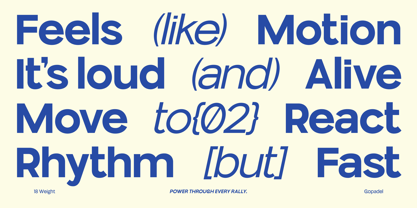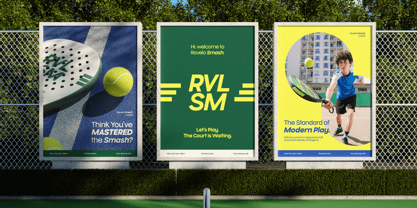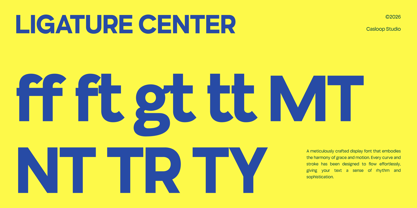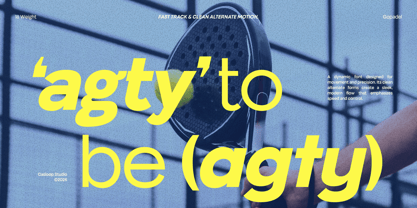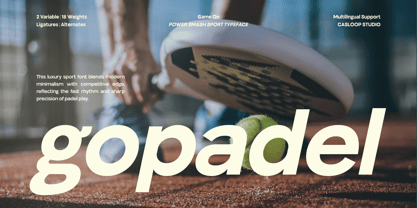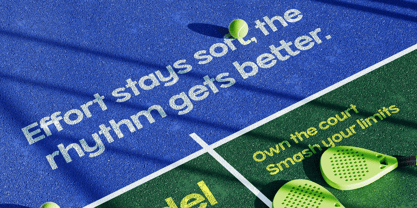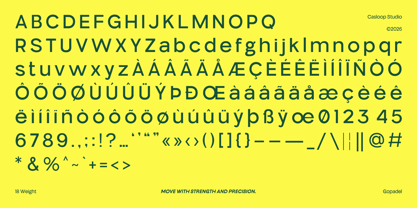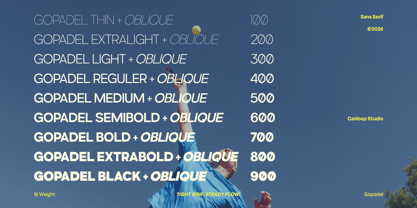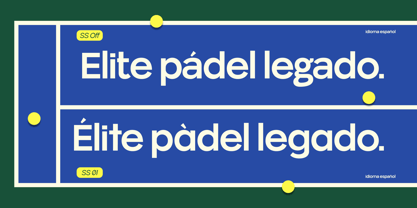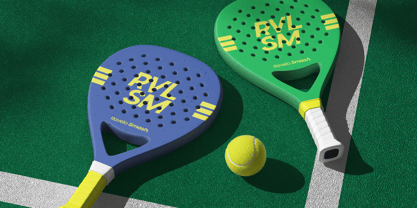
Gopadel
by Casloop Studio
The Gopadel Font Family was designed by Wantara Putra and published by Casloop Studio. Gopadel contains 18 styles and family package options. More about this family
Gopadel is a power-driven luxury sport typeface that merges disciplined structure with refined elegance, inspired by the intensity and prestige of modern athletic culture. Designed with a strong focus on key characters A, G, R, Q, S, and W, it features firm construction, balanced proportions, and precisely controlled curves that project stability, authority, and quiet confidence without excess. With its extensive 18-weight system, Gopadel delivers exceptional versatility for logos, headlines, branding systems, and modern identity design that demand a timeless, old-money sport aesthetic grounded in performance and sophistication. Recommended pairing with: Montserrat, Inter, DM Sans, Helvetica Neue, Univers, Gotham, Features : Uppercase & Lowercase Numbers and punctuation Ligatures & Stylistic Alternates Characters Multilingulal Support : Bosnian, Catalan, Czech, Danish, German, English, Spanish, Estonian, Finnish, French, Irish, Croatian, Hungarian, Icelandic, Italian, Lithuanian, Latvian, Dutch, Norwegian, Polish, Portuguese, Romanian, Slovak, Slovenian, Albanian, Swedish, Turkish.
Designers: Wantara Putra
Foundry: Casloop Studio